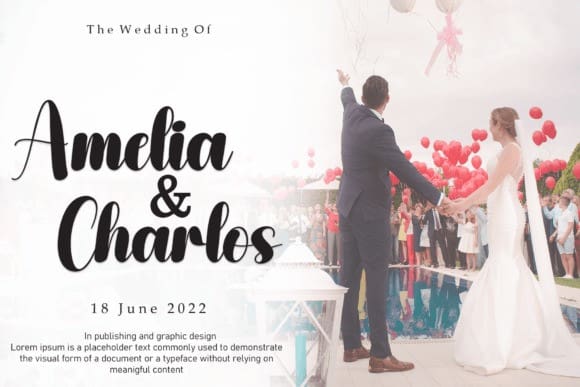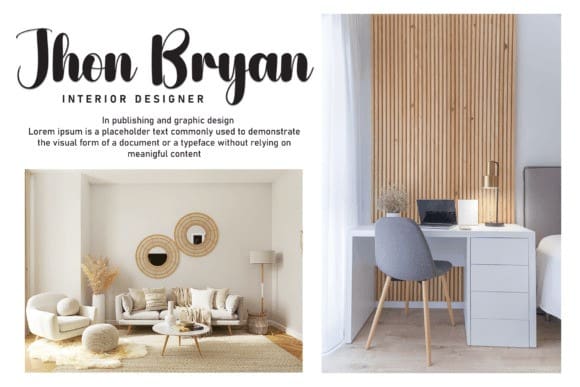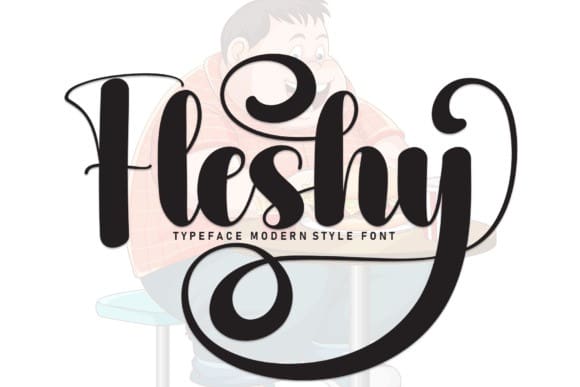
Fleshy Script Font
Fleshy Script Font is a sweet and friendly handwritten font. Fresh and casual, this font is ideal for writing wedding invitations, cards, or any other design that might need a lovely touch.